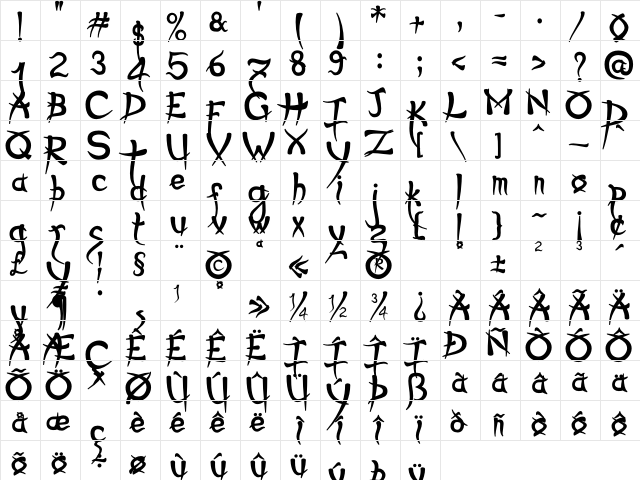
Psycho Bold
Design Context for Psycho Typeface
Psycho is a composed and adaptable typeface that performs quietly and consistently across a wide range of design contexts. The heavy weight commands attention and anchors typographic hierarchies.